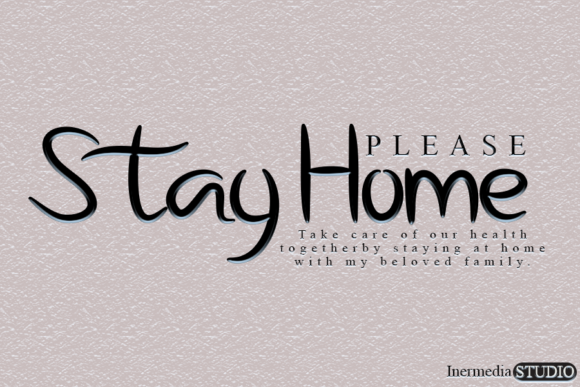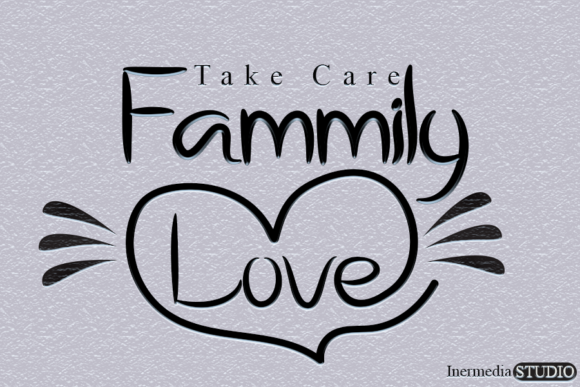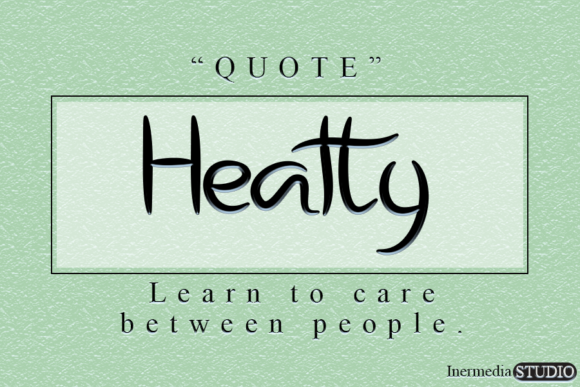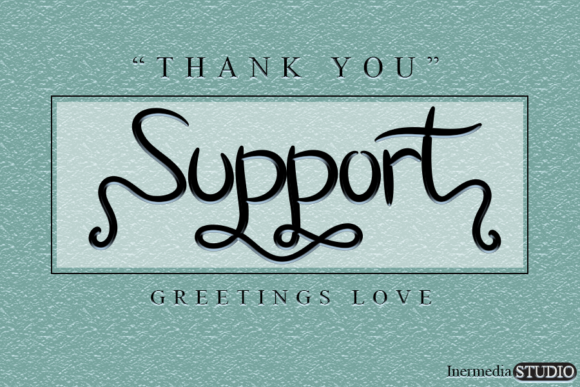
Introduction to Donate Font
Have you ever stumbled upon the perfect font while scrolling through social media, only to find yourself captivated by its unique charm and wanting to recreate that same magic in your next creative project? This is exactly what happened to many designers when they discovered the Donate Font – a cute and casual handwritten font that exudes an incredibly friendly feel.
The Donate Font is more than just a pretty face; it’s a valuable design resource that can elevate any creative project from ordinary to extraordinary. With its high-quality, handwritten script, this font is perfect for designers looking to add a personal touch to their work. Whether you’re working on a DIY project, creating graphics for Instagram, or designing a wedding invitation, the Donate Font is sure to bring your vision to life.
Key Features of Donate Font
- High-quality design resource for creative projects, perfect for designers and artists.
- Features a transparent background, allowing for easy layering and customization in design projects.
- Designed to be highly legible and versatile, making it suitable for a wide range of creative applications.
- Includes a comprehensive character set, including uppercase and lowercase letters, numbers, and punctuation marks.
Honest Review: Donate Font
I recently stumbled upon Donate Font while searching for a free design resource for a creative project. At first, I was skeptical about the quality, but I was pleasantly surprised.
- High quality and professional-looking fonts
- Transparent background, making it easy to use in any design
One of the standout features of Donate Font is its high-quality fonts. The fonts are professional-looking and perfect for any creative project. The transparent background is also a bonus, making it easy to use in any design without worrying about the background.
While Donate Font is a great resource, it’s not perfect. The lack of documentation and support can be frustrating, and the lack of updates or new font releases may limit its use in the long run.
Overall, Donate Font is a great resource for designers who need high-quality fonts for a creative project. While it has some limitations, it’s a great option for those on a budget or looking for a free design resource.
How to Use Donate Font
Donate Font is a high-quality design resource that can elevate your creative project. With a transparent background, it’s perfect for adding a touch of sophistication to your designs.
Tips for Getting the Most Out of Donate Font
For best results, use Donate Font in combination with other high-quality design resources. Experiment with different font sizes and styles to add visual interest to your design.
Donate Font is perfect for creating:
Brand logos and identities
Marketing materials and brochures
Infographics and data visualizations
Are the Donate Font files suitable for use on a transparent background?
Yes, the Donate Font has been designed with a transparent background, making it ideal for use in creative projects where a clear background is required. This feature allows designers to easily overlay the font on top of images or other design elements, adding an extra layer of depth and visual interest to their work.